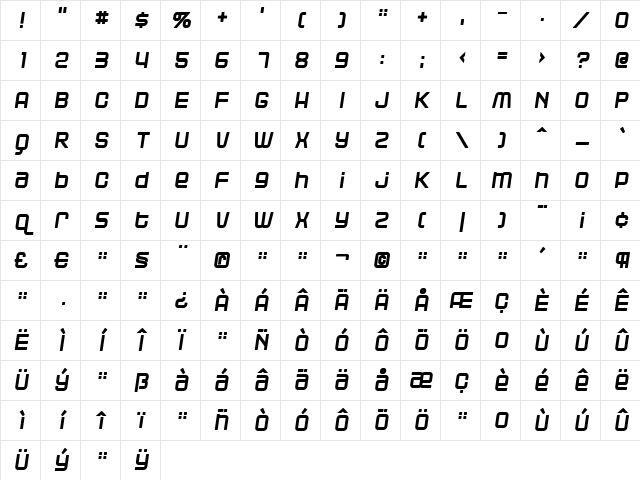
Complete Blackjack Rollin glyph index. Displaying only characters natively supported by Blackjack Rollin font.
Blackjack is a composed and adaptable typeface that performs quietly and consistently across a wide range of design contexts.